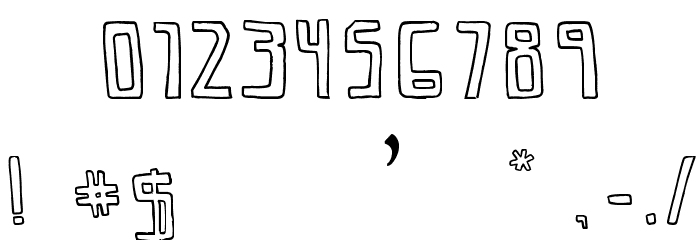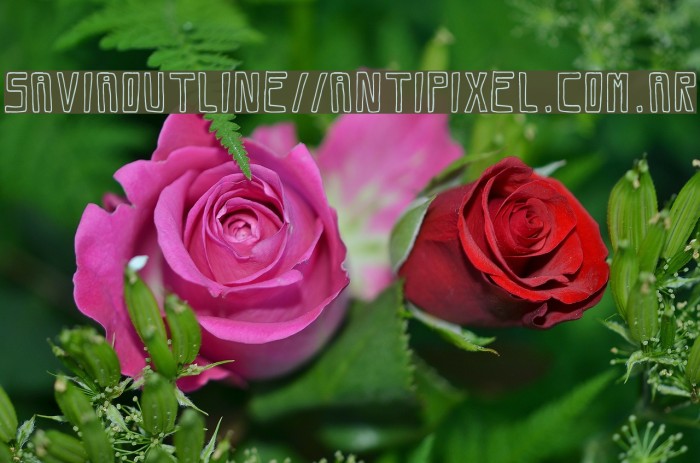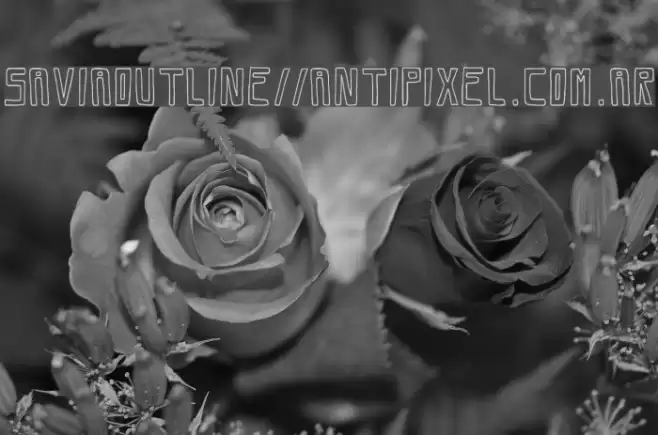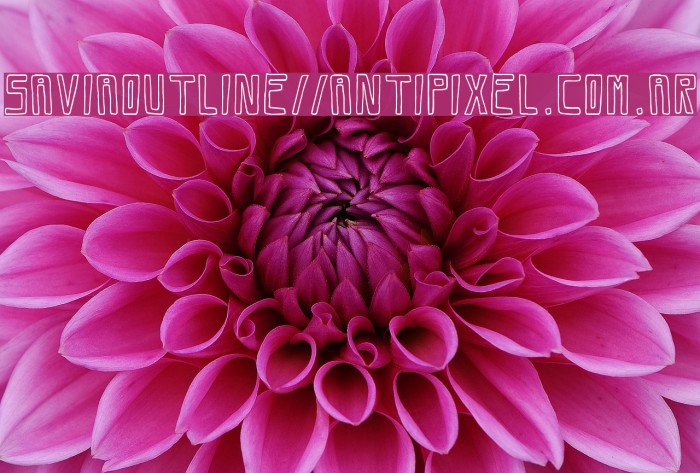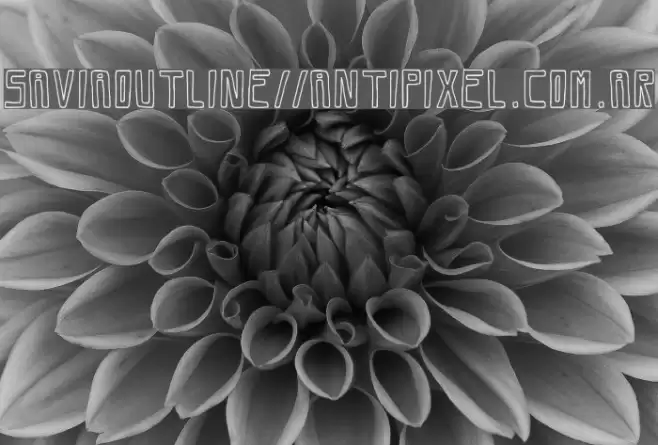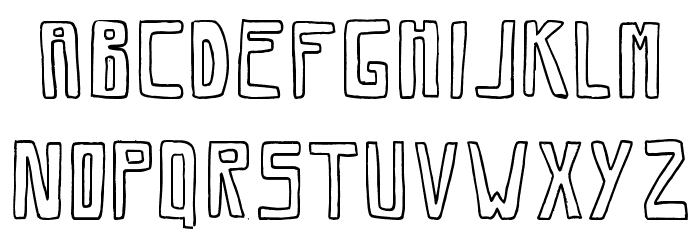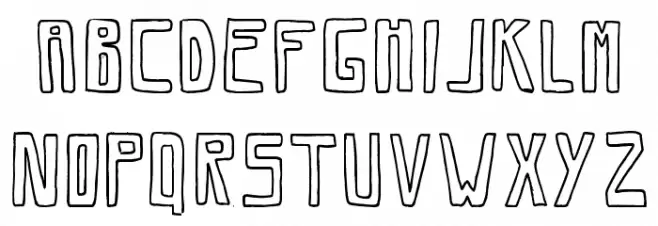
SaviaOutline//ANTIPIXEL.COM.AR Font
SaviaOutline//ANTIPIXEL.COM.AR Description
This font features a unique outline style with a hand-drawn aesthetic, giving it a playful and artistic appearance. The characters are uppercase and have a consistent height, with slightly irregular line thickness that adds to the handcrafted feel. The numbers and special characters maintain the same stylistic approach, ensuring uniformity across all glyphs. This font's quirky and informal design makes it ideal for creative projects that require a touch of whimsy and individuality.
A playful, hand-drawn outline font with a quirky and artistic style from Uncategorized fonts.
- Overall Style: Artistic, Playful